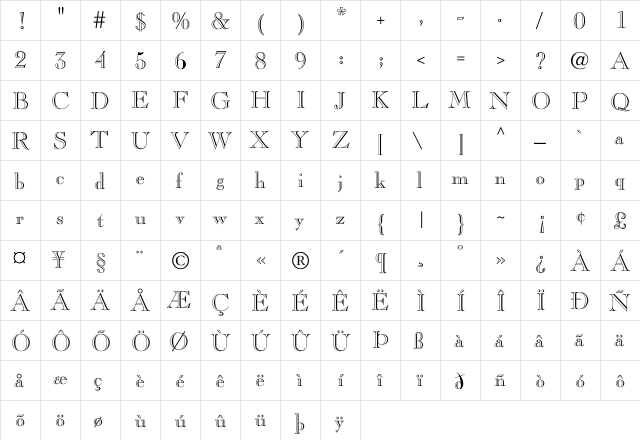
Tintinabulation Hollow Regular
Tintinabulation Hollow takes a measured approach to typography — its balanced proportions and neutral character make it a reliable workhorse for both digital and print work.